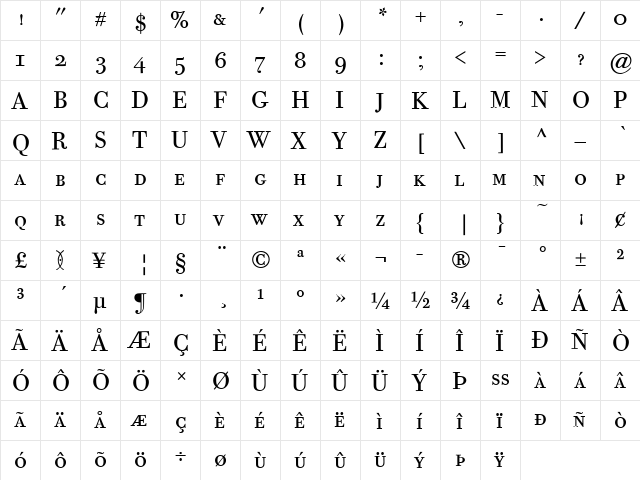
Bodoni Twelve ITC Book Font Preview
Bodoni Twelve ITC Book
Design Context for Bodoni Twelve ITC Typeface
Bodoni Twelve ITC offers clean, dependable letterforms without strong stylistic allegiance, making it a practical choice for designers who need flexibility.